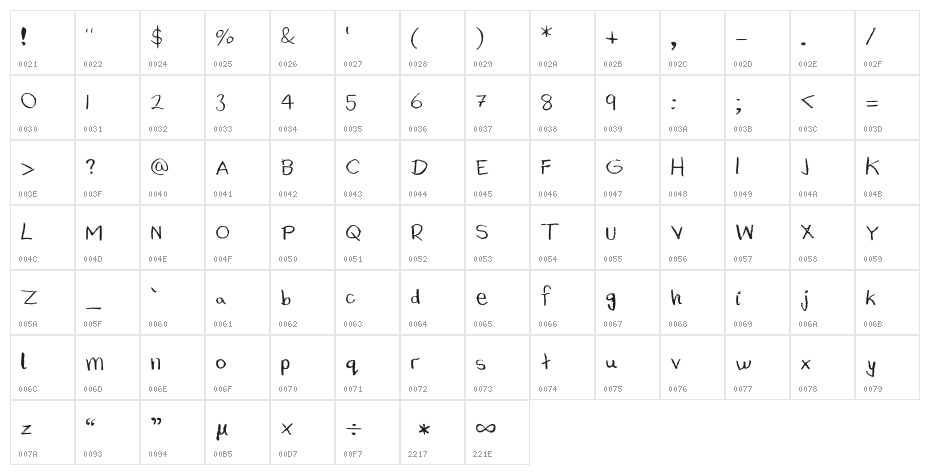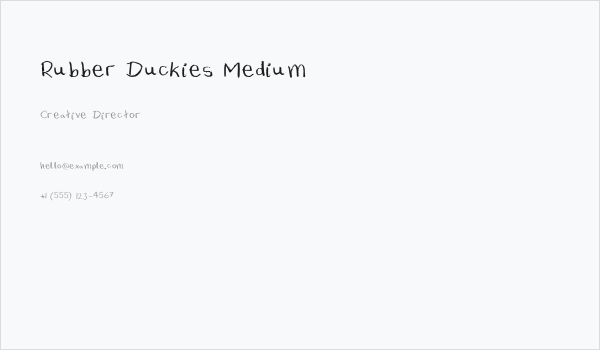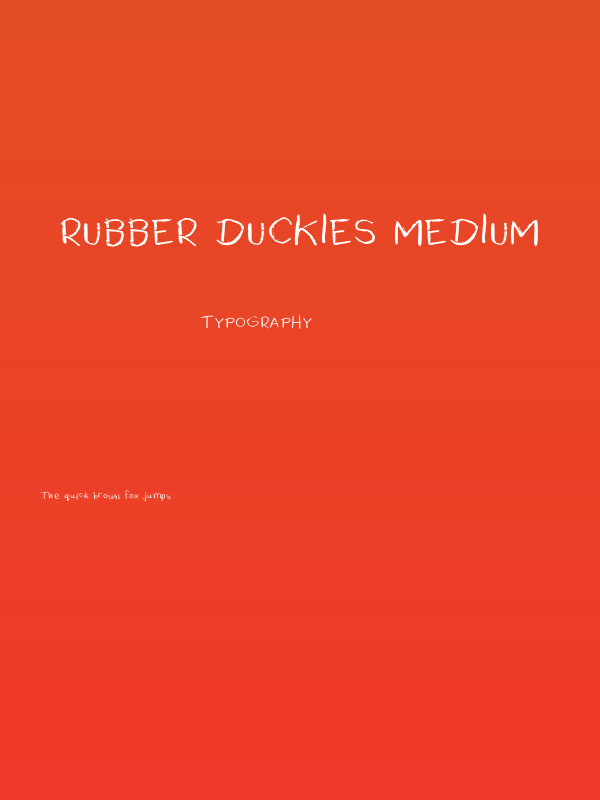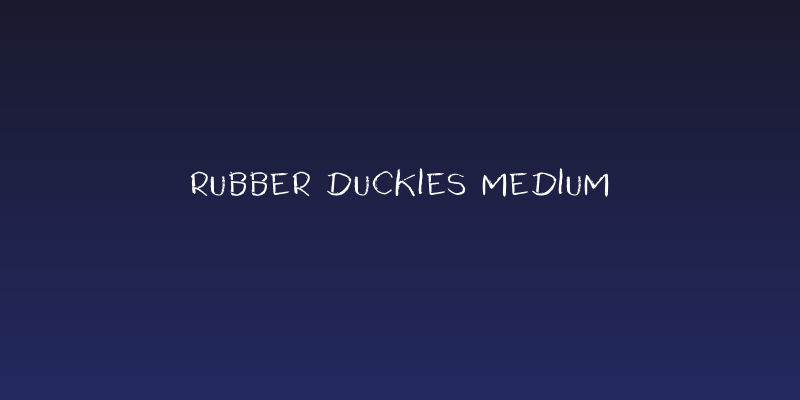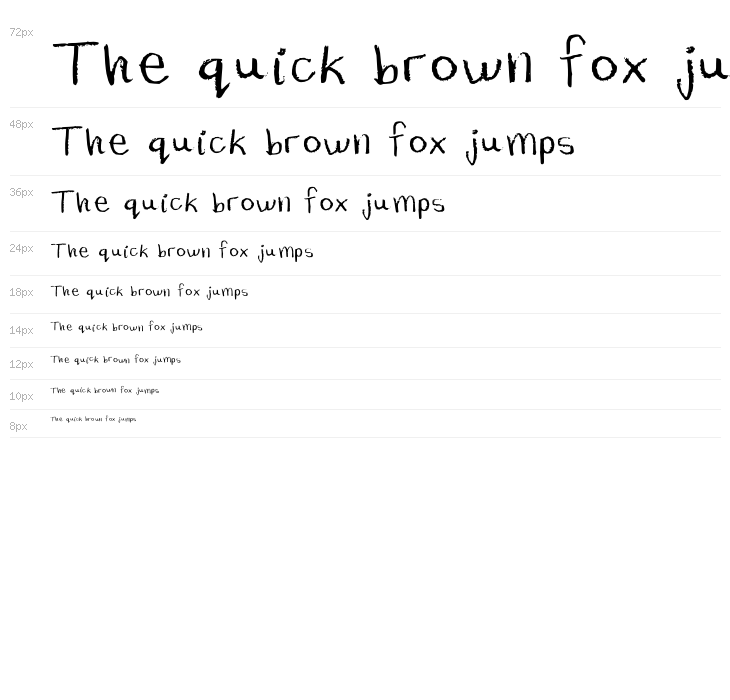
Rubber Duckies Medium Font
Rubber Duckies Medium Description
This font features a playful and informal style, reminiscent of hand-drawn letters with a slightly rough texture. The characters have a whimsical and casual appearance, with uneven strokes that give it a lively and dynamic feel. The uppercase letters are bold and prominent, while the lowercase letters maintain a consistent flow, adding to the font's approachable nature. The numerals and special characters are crafted with the same playful touch, making them suitable for creative and fun projects. The overall design is unique and stands out, making it ideal for projects that require a personal and friendly touch.
| Overall Style | Playful, Casual |
| Proposed Projects | Ideal for children's books, playful branding, greeting cards, and creative posters. |